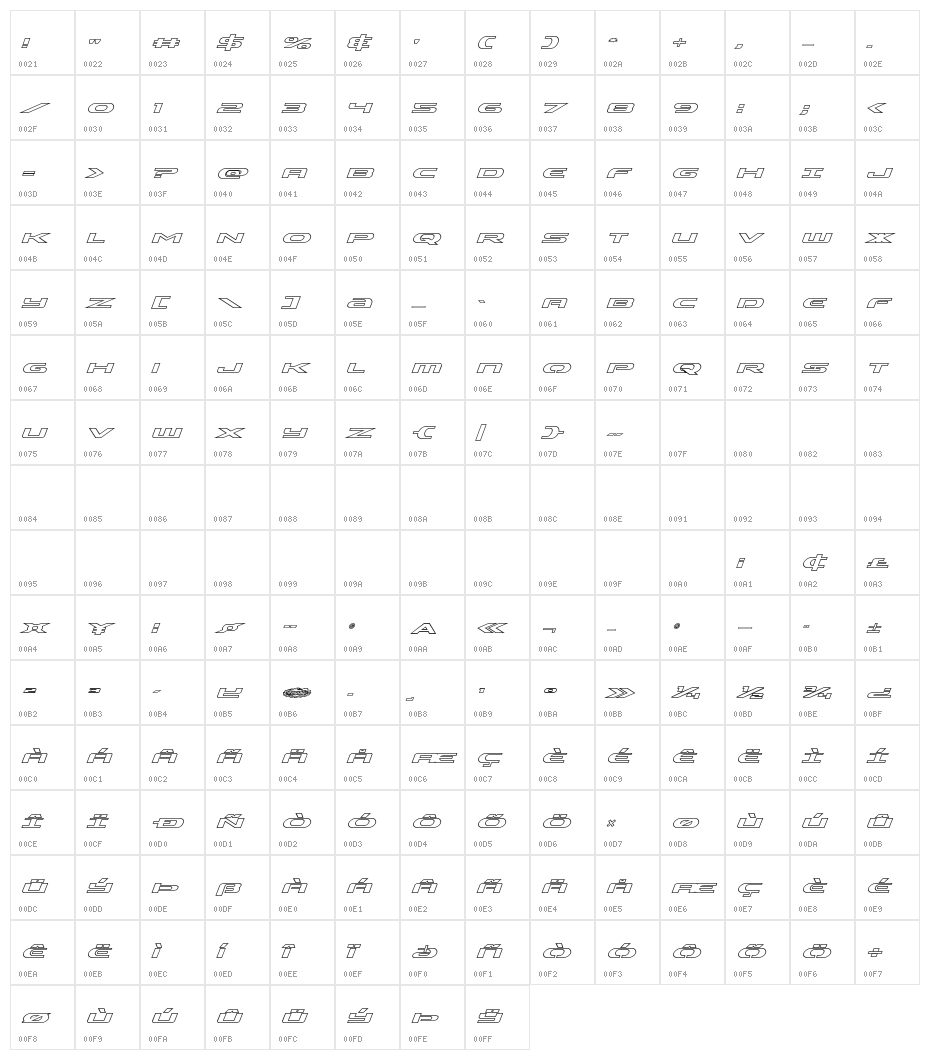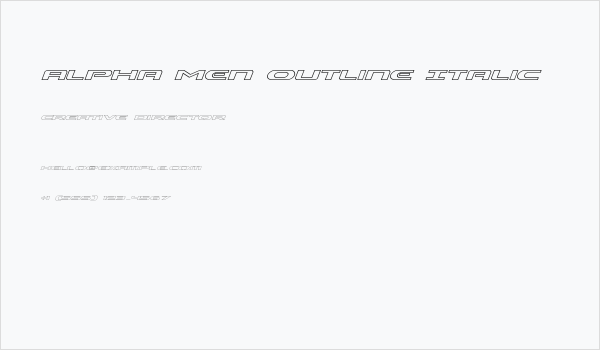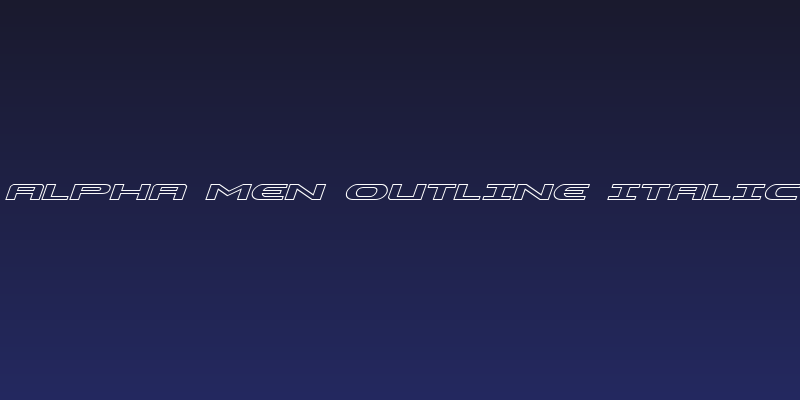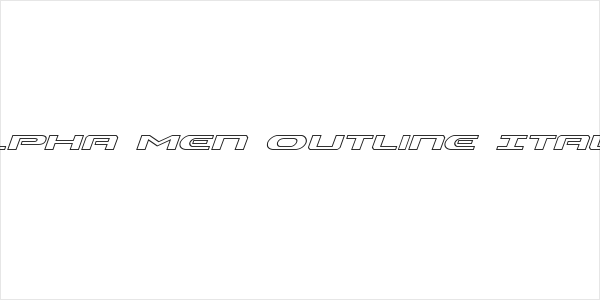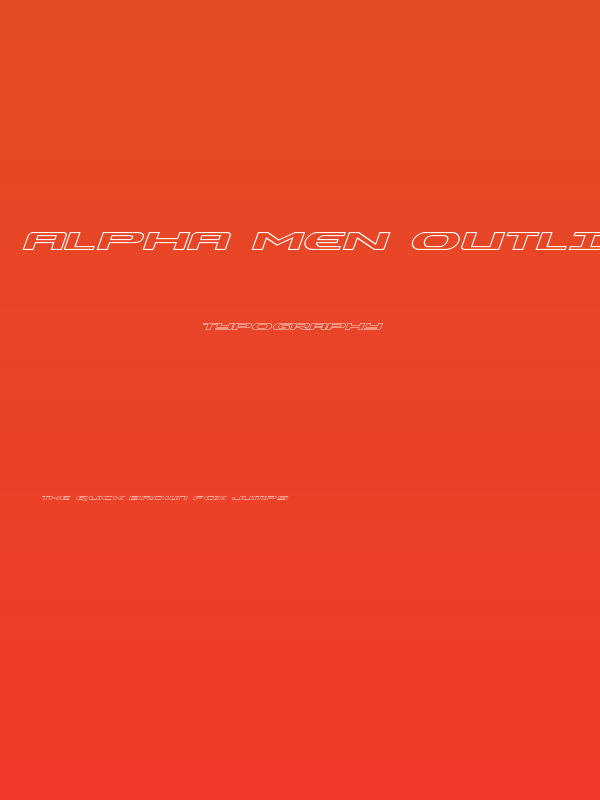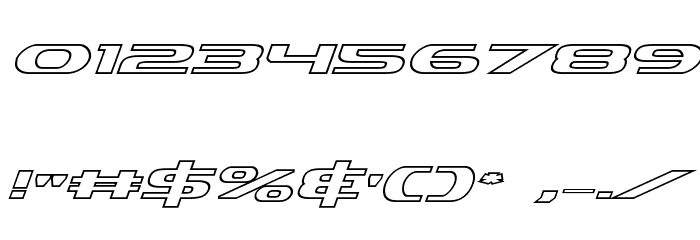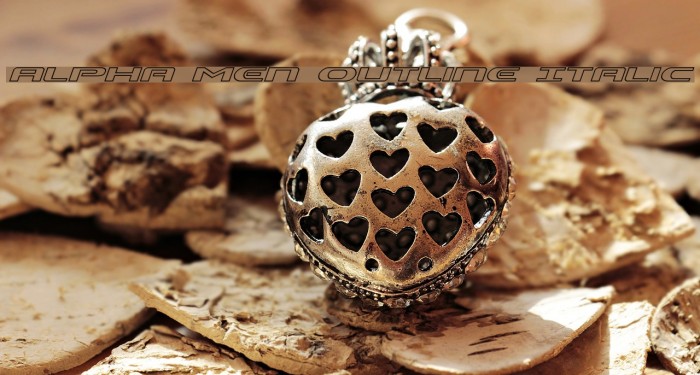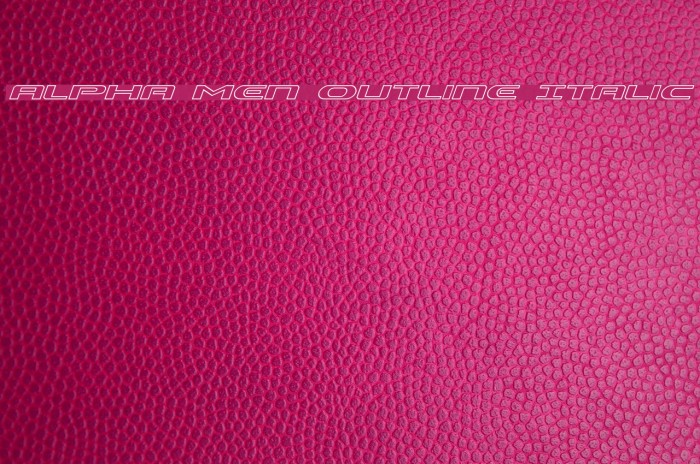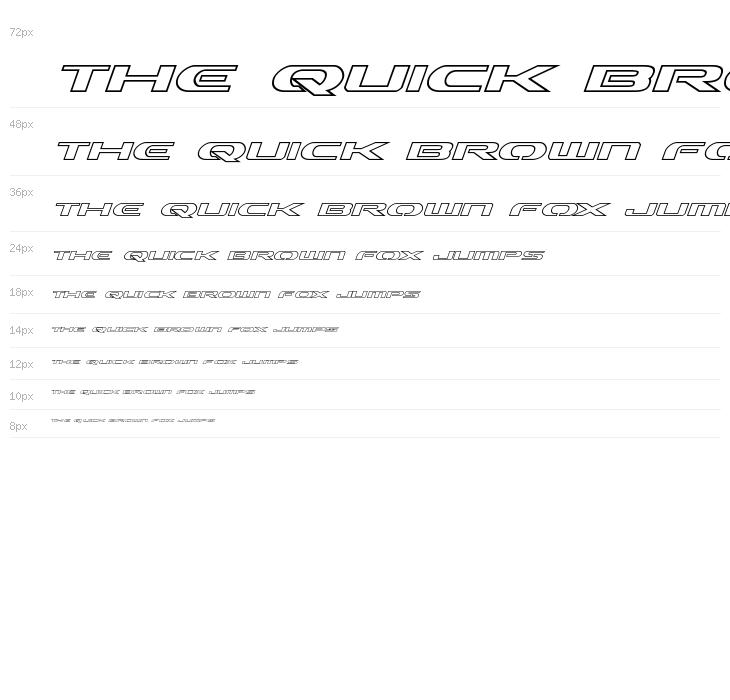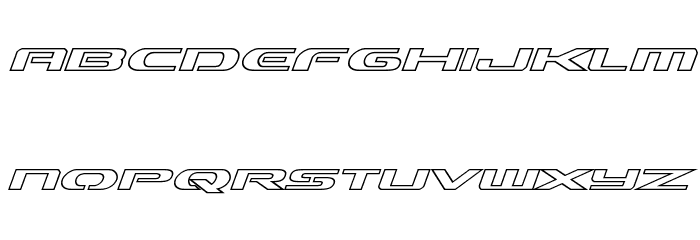
Alpha Men Outline Italic Font
This font features a modern, outlined design with an italic slant, giving it a dynamic and futuristic appearance. The characters are constructed with clean, geometric lines that form an open, airy structure, making it ideal for creating a sense of movement and speed. The uppercase and lowercase letters maintain a consistent style, with uniform stroke widths that contribute to a balanced and cohesive look. The numerals and special characters are crafted with the same attention to detail, ensuring versatility across various applications. Its outlined nature allows for creative layering and color usage, enhancing its visual impact.